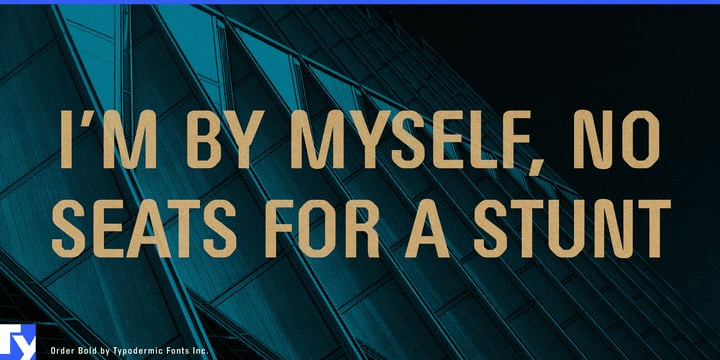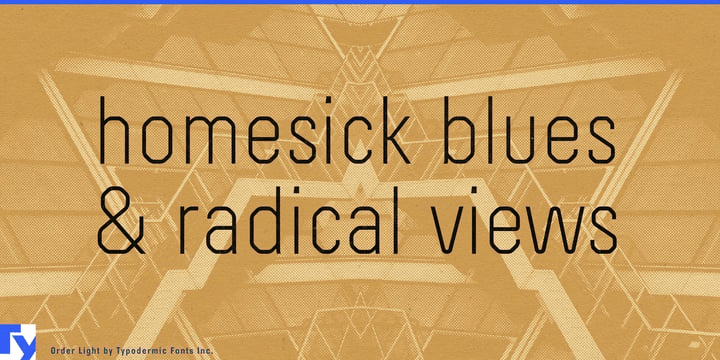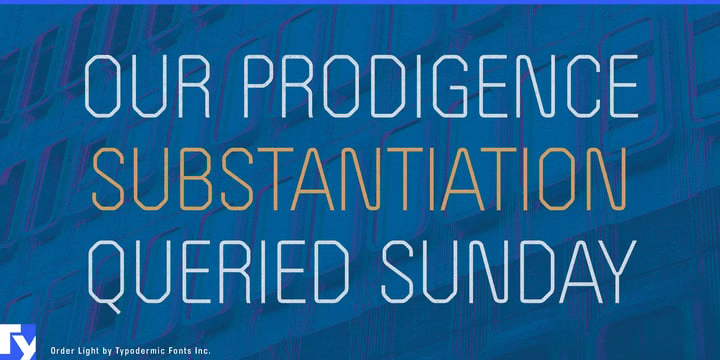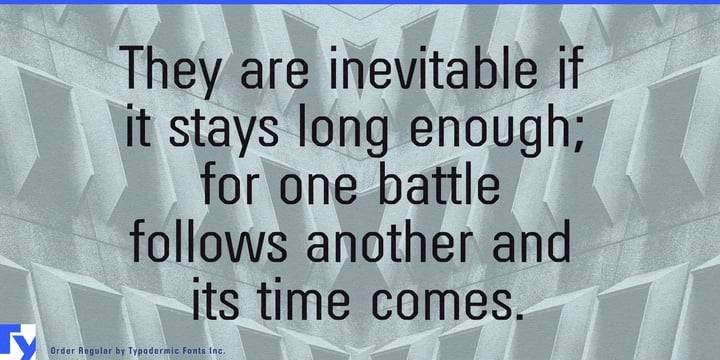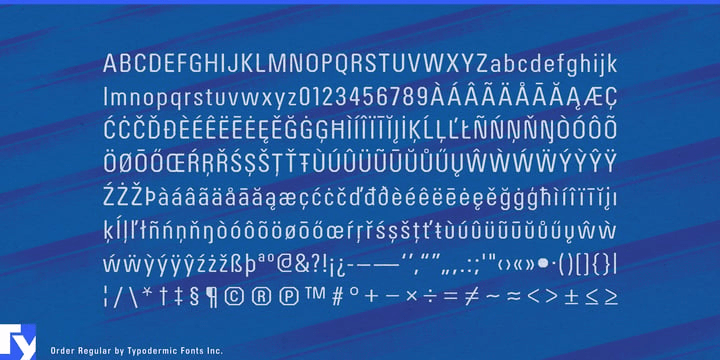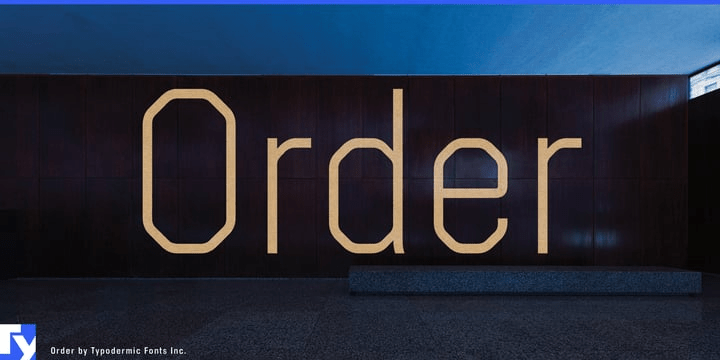
Order
About Order
In the realm of typography, Order stands as a testament to the power of logical design in headlines and titles. This condensed, technical plotter-style display typeface, with its Univers-inspired proportions, is the embodiment of typographic efficiency…